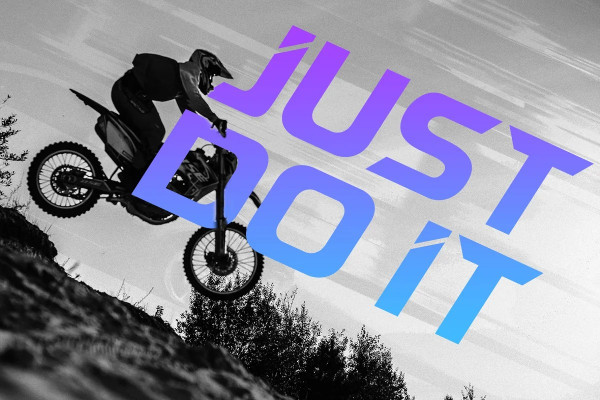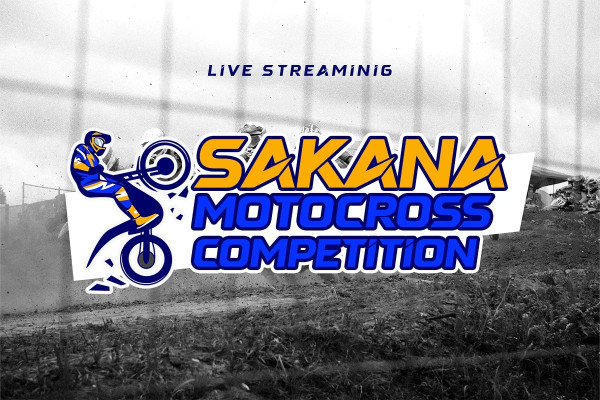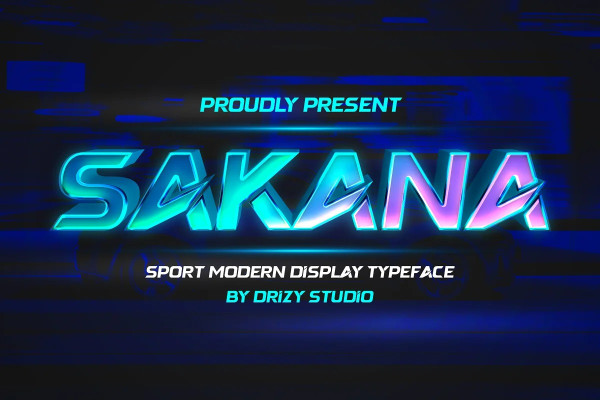
Sakana Futuristic Font
Sakana Futuristic Font, is Sport Modern Display futuristic font from Drizy studio. Offering all the basic styles you will need for a successful project especially for futuristic, sporty and modern theme.